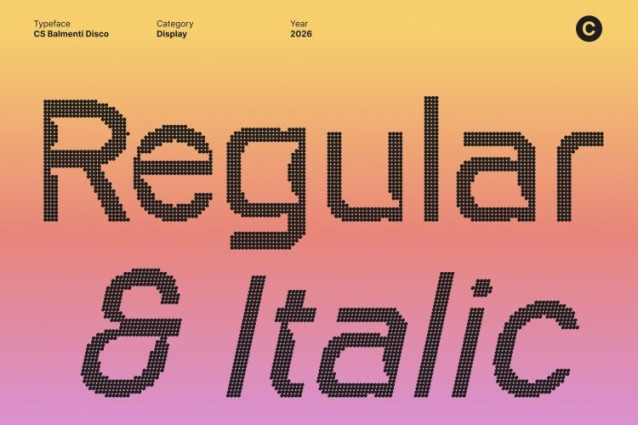
CS Balmenti Disco Font This is a bold display sans serif font that blends sharp, clean industrial lines with vibrant disco-inspired energy. Its strong geometric construction delivers a modern, confident appearance, while the disco styling adds a glamorous edge that feels dynamic, stylish, and ready to shine.
Sharp Lines with Festive, High-Impact Presence
Built on a minimalist and industrial foundation, this font maintains clarity and precision while gaining a lively, energetic personality. The bold strokes and clean forms ensure maximum impact, while the disco influence injects movement, excitement, and visual rhythm perfect for designs that need both authority and flair.
Perfect for Contemporary Branding and Party-Driven Visuals
This font excels in modern branding, signage, posters, and promotional graphics where strength meets celebration. Ideal for club visuals, event posters, café branding, fashion promotions, and nightlife concepts, this font transforms industrial toughness into a bold, festive statement.
Versatile, Bold, and Made to Shine
Despite its industrial roots, this font remains highly versatile across digital and print applications. From web design and editorial layouts to merchandise and campaign visuals, delivers readability, confidence, and modern glamour making every design feel powerful, contemporary, and energized by the spirit of the dance floor.